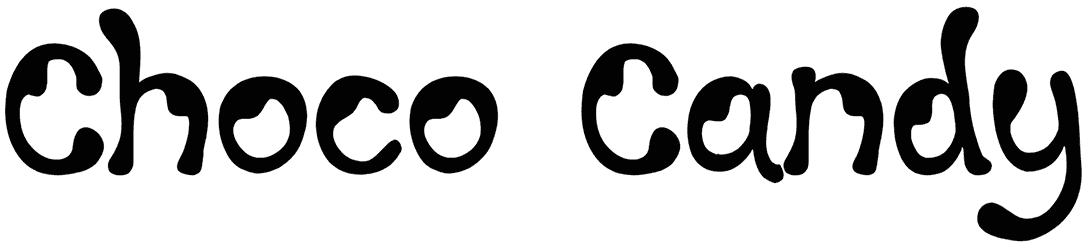
Choco Candy Font
Choco Candy is a sweet font with a cute and lively style that can help your gaming interfaces, food packaging, children’s toys, etc., stand out from the crowd. If you want your text to seem decorative and appetizing to your audience, so this comic font is for you.